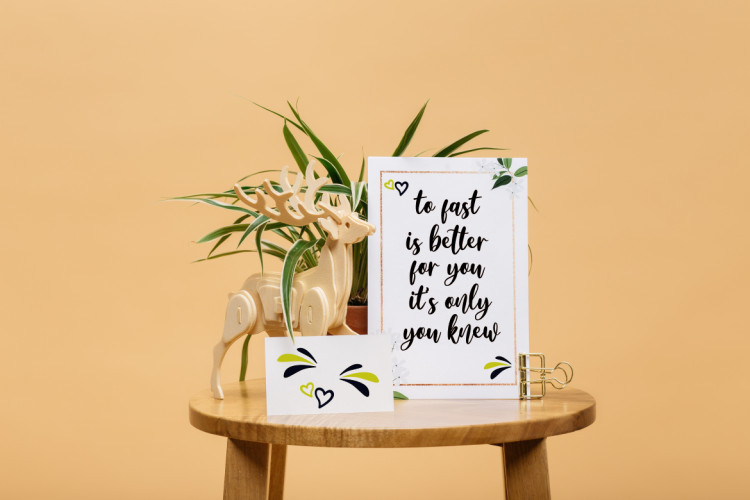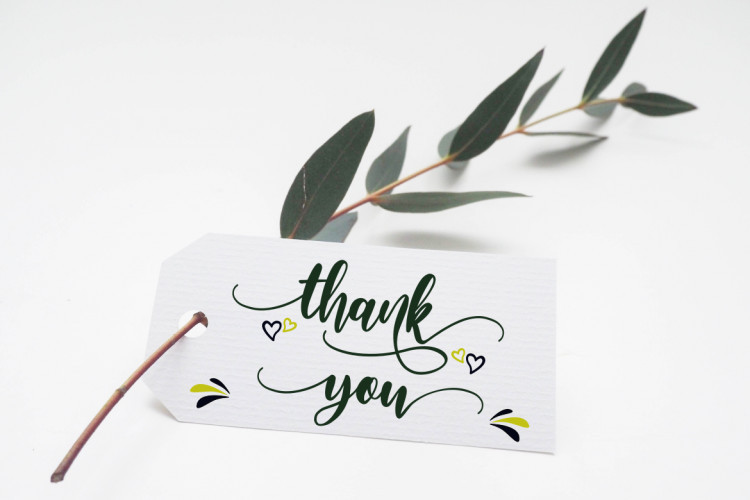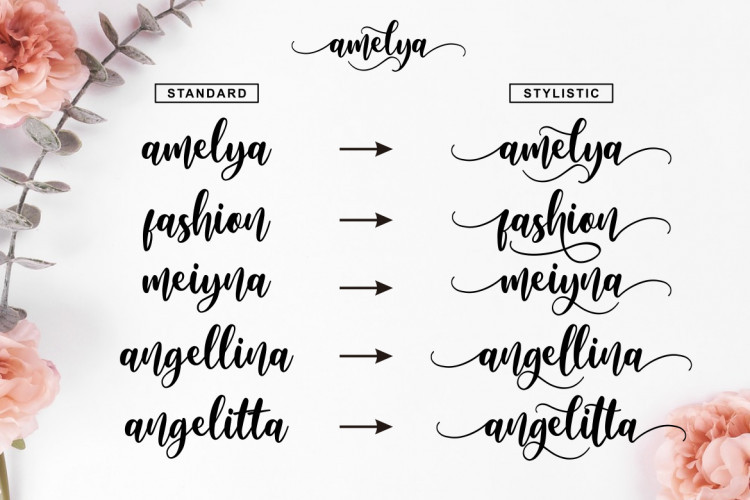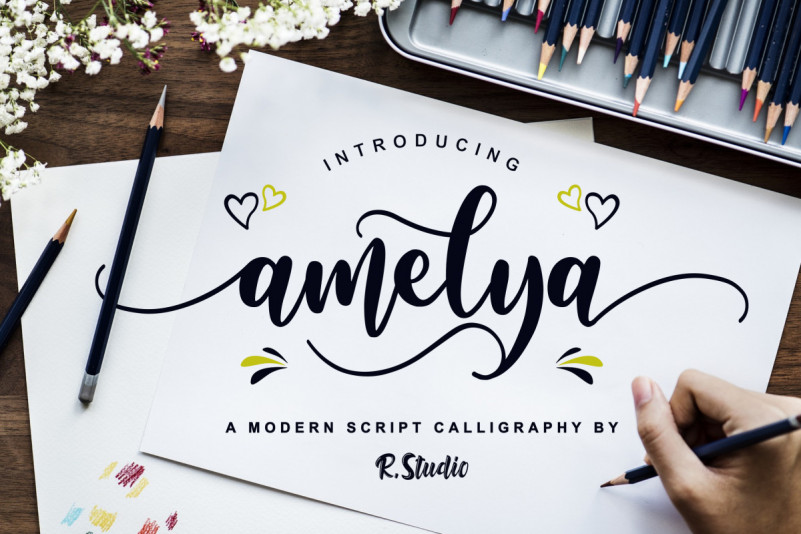
Amelya Script Font
Hii, Introducing Amelya is a modern script calligraphy font. It’s classic look and dancing baseline makes it perfect for adding an elegant touch to your designs.
It can be used for various purposes such as headings, signatures, logos, wedding invitations, t-shirts, letterheads, signage, labels, news, posters, badges, and much more!